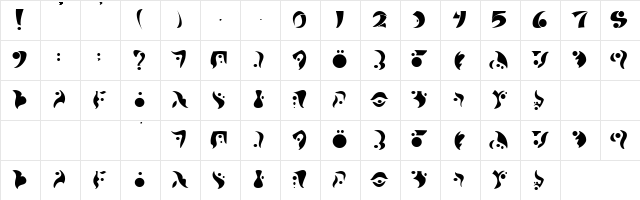
Complete Precursor Alpha Regular glyph index. Displaying only characters natively supported by Precursor Alpha Regular font.
Precursor Alpha is a composed and adaptable typeface that performs quietly and consistently across a wide range of design contexts.